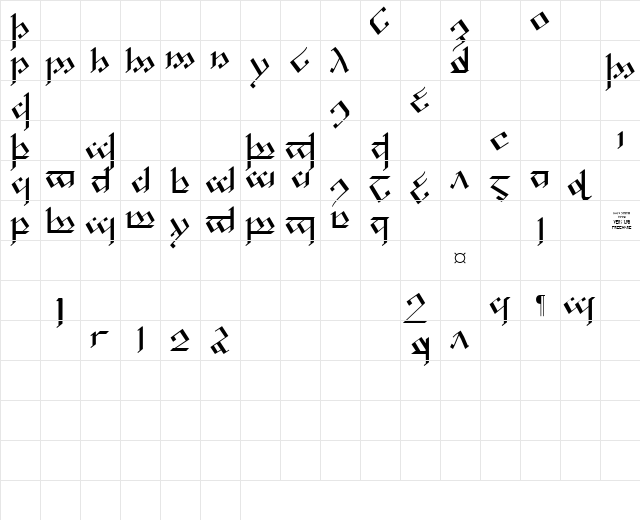
Tengwar Noldor-1 Regular Font Preview
Tengwar Noldor-1 Regular
Tengwar Noldor-1 Regular Font Details
Design Context for Tengwar Noldor-1 Typeface
Tengwar Noldor-1 offers clean, dependable letterforms without strong stylistic allegiance, making it a practical choice for designers who need flexibility.
Pro Tip: Use Tengwar Noldor-1 in both headline and body roles to test its range before committing to a single application.